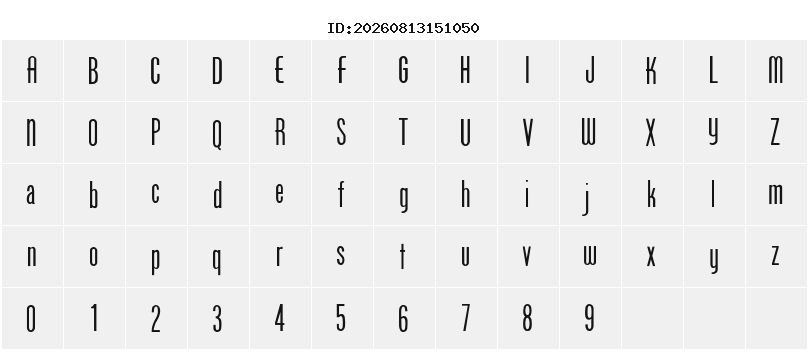
RSPhoenix Preview
• Font Name: RSPhoenix
• Full Font Name: RSPhoenix
• PostScript Name: RSPhoenix
About RSPhoenix.ttf
RSPhoenix.ttf is a modern, elegant sans-serif font designed for ultimate readability and visual harmony. Perfect for branding, headlines, web design, and print materials.